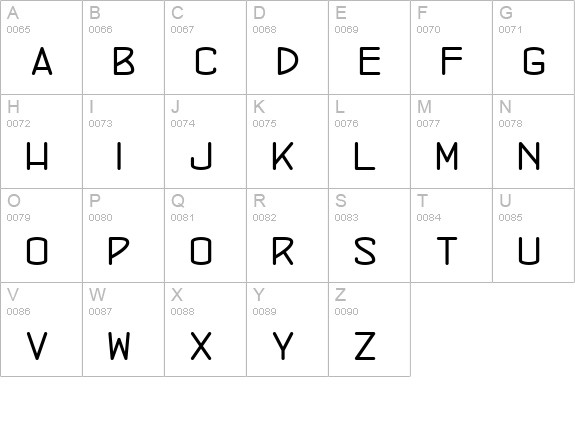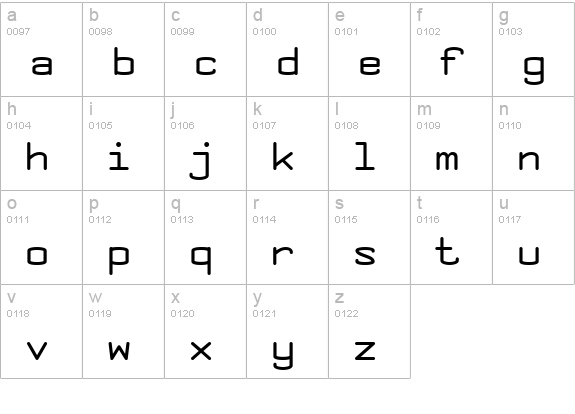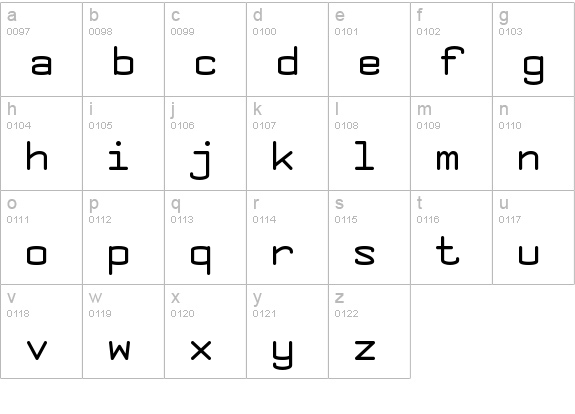
Concursico Mono BTN Font Details
Concursico Mono BTN font is a modern and stylish typeface that exudes sophistication and elegance. Its clean lines and sleek design make it perfect for a wide range of projects, from branding to editorial design. The font's monospaced style gives it a unique and distinctive look that sets it apart from other typefaces. The best part? Concursico Mono BTN font is available for free download at FontsMarket.com. This means that you can easily add this beautiful font to your collection without any cost. Whether you're a designer looking to elevate your projects or a hobbyist experimenting with typography, this font is a must-have addition to your toolkit. With its versatility and timeless appeal, Concursico Mono BTN font is sure to become a staple in your font library. Download it today and see how it can enhance your designs with its effortless charm and sophistication.